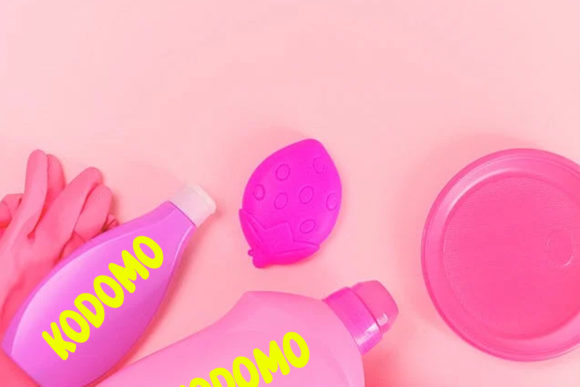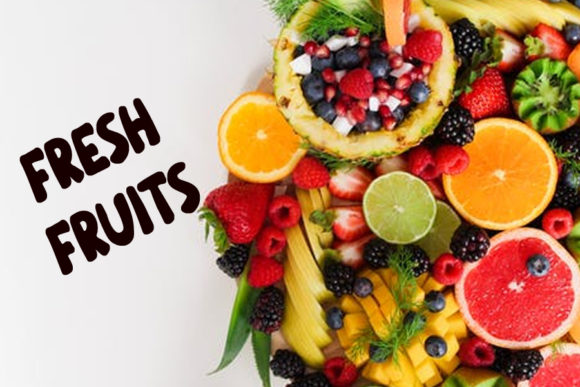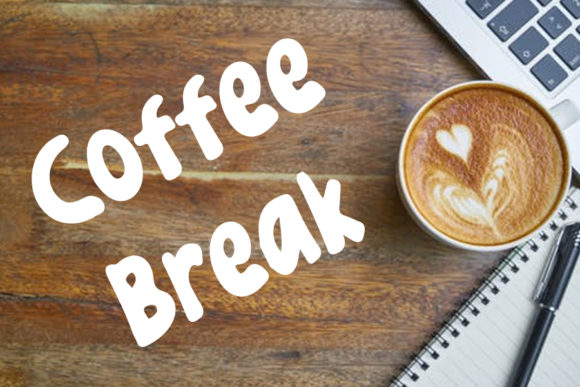
Introduction to Kodomo Font
Kodomo is a fresh and colorful display font.
It embodies playfulness and authenticity and is the perfect choice for any children activity or school project Add this chunky lettered font to your designs and notice how it makes them come alive.